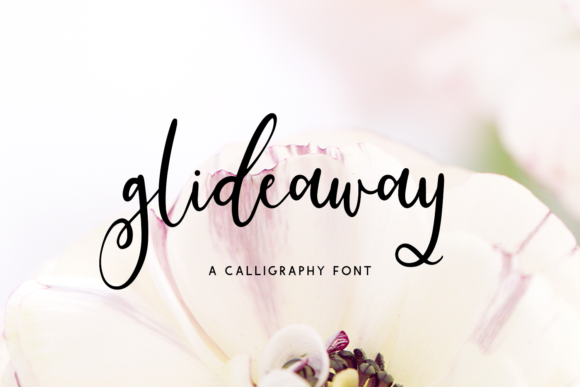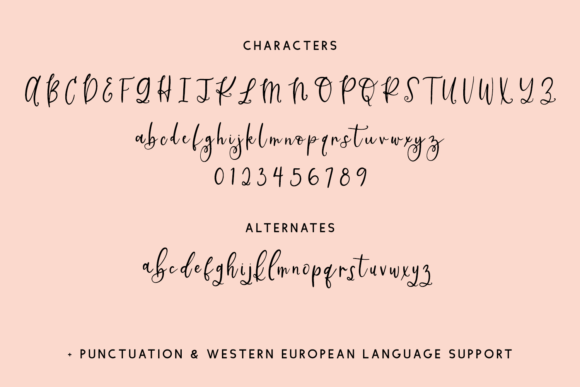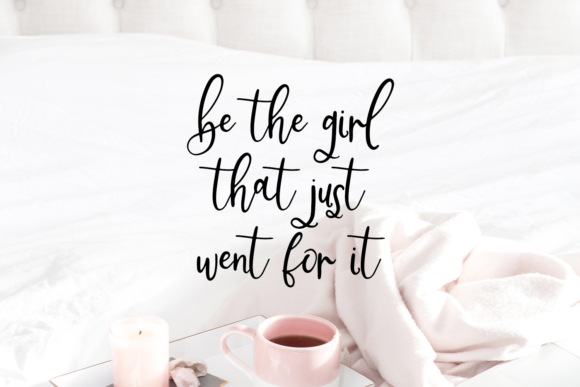
About Glideaway Script Font
Glideaway is a modern calligraphy script. This hand-lettered font features alternate characters to customize your text, including some cute flourished descenders to bring the perfect feminine feel to your project.
Glideaway Script is best for:
– logos + branding
– website design + website accents – think travel blogs, fashion blogs, & more
– clean print design, like magazines + flyers
– header elements that need a handwritten touch
– quote graphics for social media